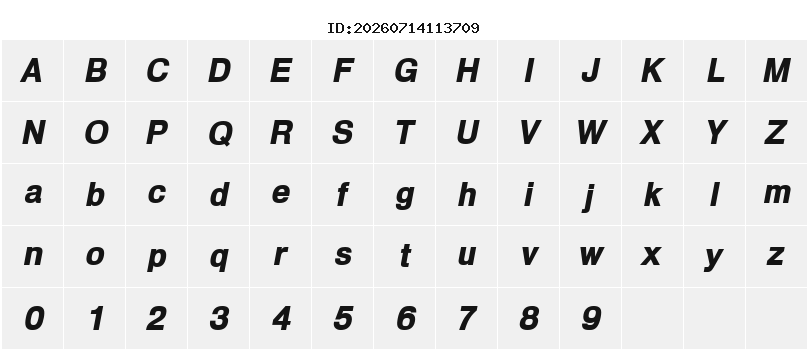
HeldustryFT Black Italic.ttf is a modern, elegant sans-serif font designed for ultimate readability and visual harmony. Perfect for branding, headlines, web design, and print materials.